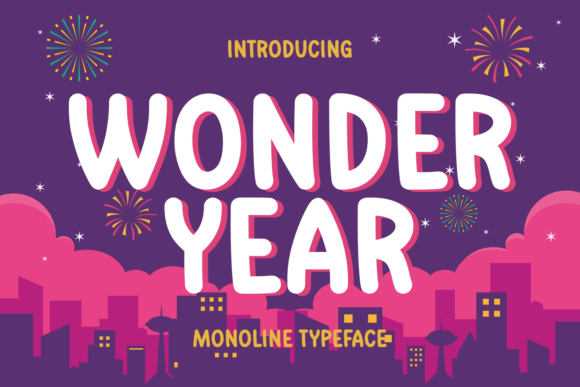
Font addicts, check out Wonder Year! This monoline display font from Creative Fabrica Fonts is a must-have for any designer's arsenal. Wonder Year's clean, neat, and modern aesthetic make it the perfect choice for any project that needs a touch of sophistication.
Get ready to make a statement with Wonder Year's bold characters that instantly grab attention. These characters are meticulously crafted to provide the ultimate visual impact, leaving a lasting impression on your audience.
From eye-catching posters to sleek websites and elegant cards, Wonder Year seamlessly adapts to any design need. Its versatility knows no bounds, making it a font that every designer should have at their fingertips.
So, why settle for ordinary when you can have extraordinary? Dive into the world of Wonder Year Font and let your creativity soar. It's the perfect font to elevate your projects to new heights and make your vision come alive.